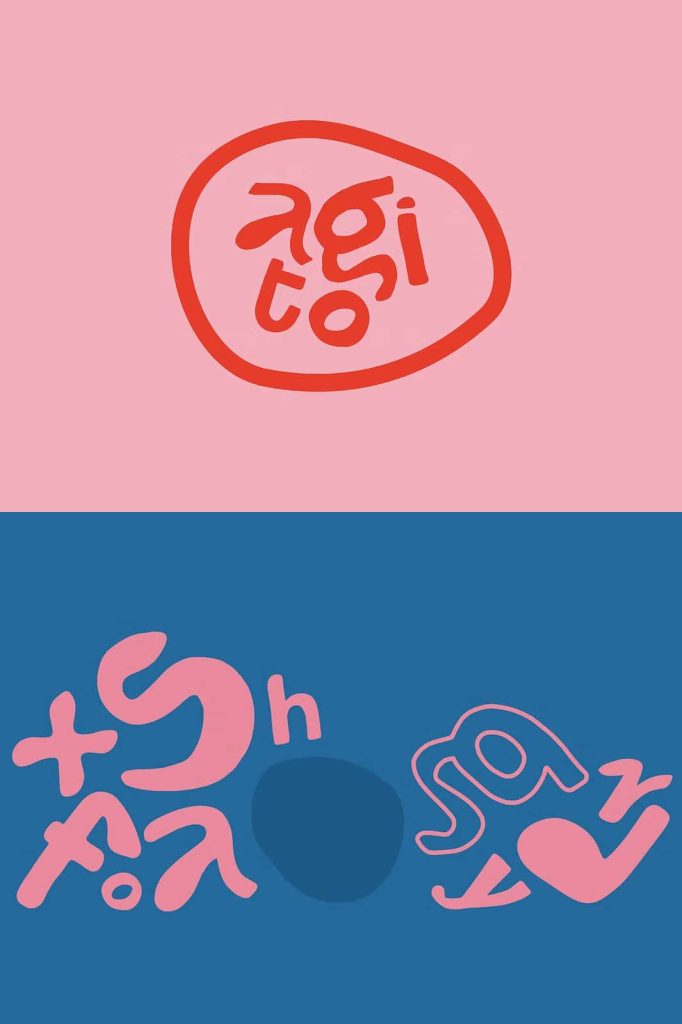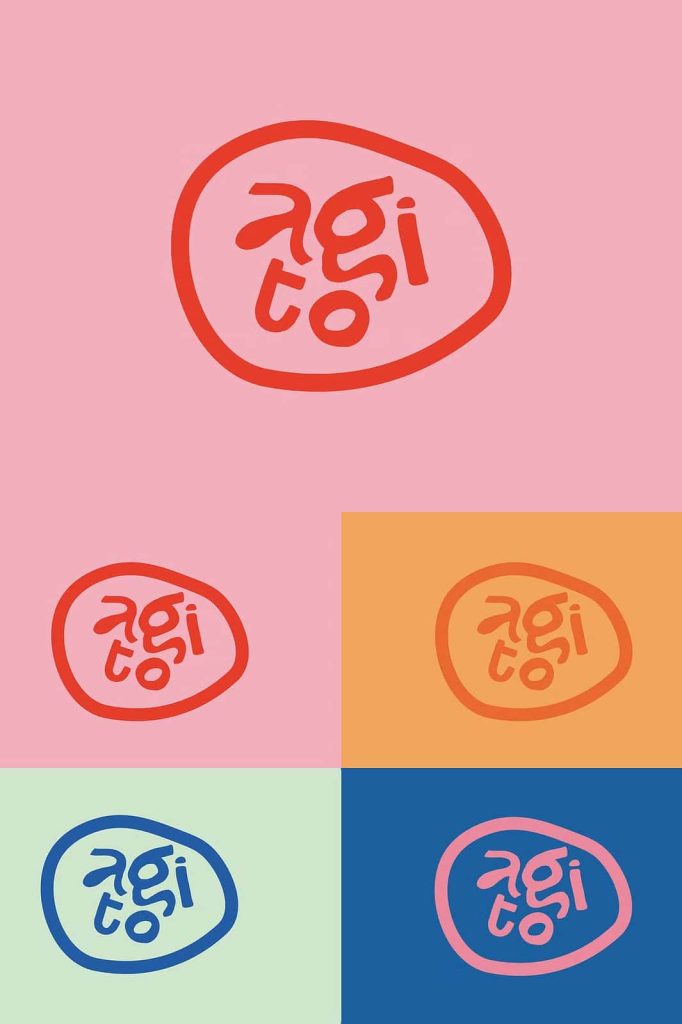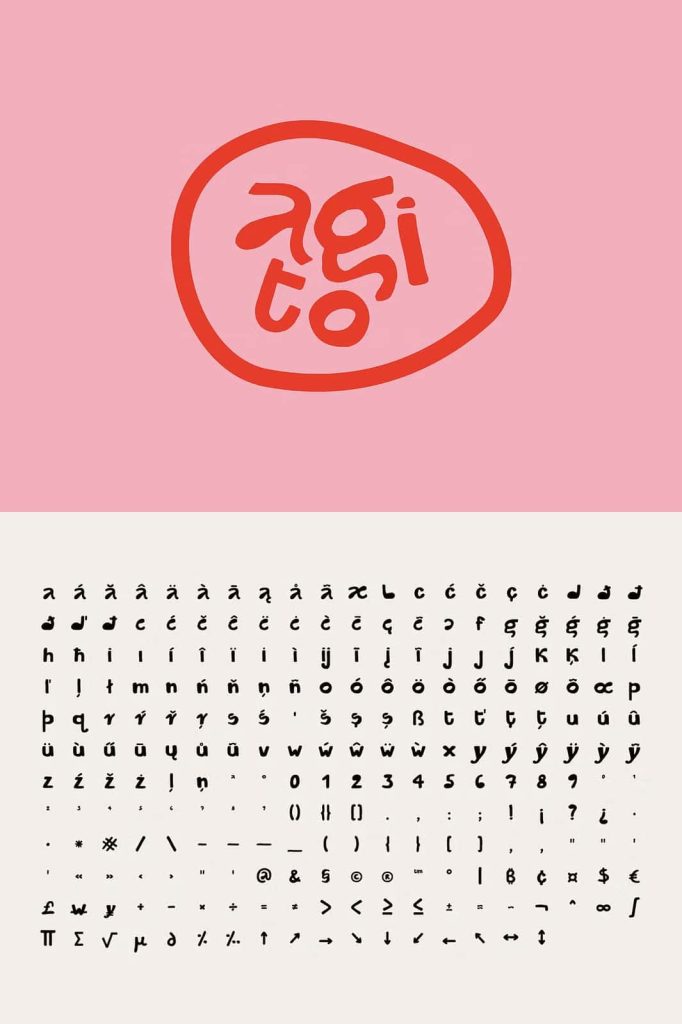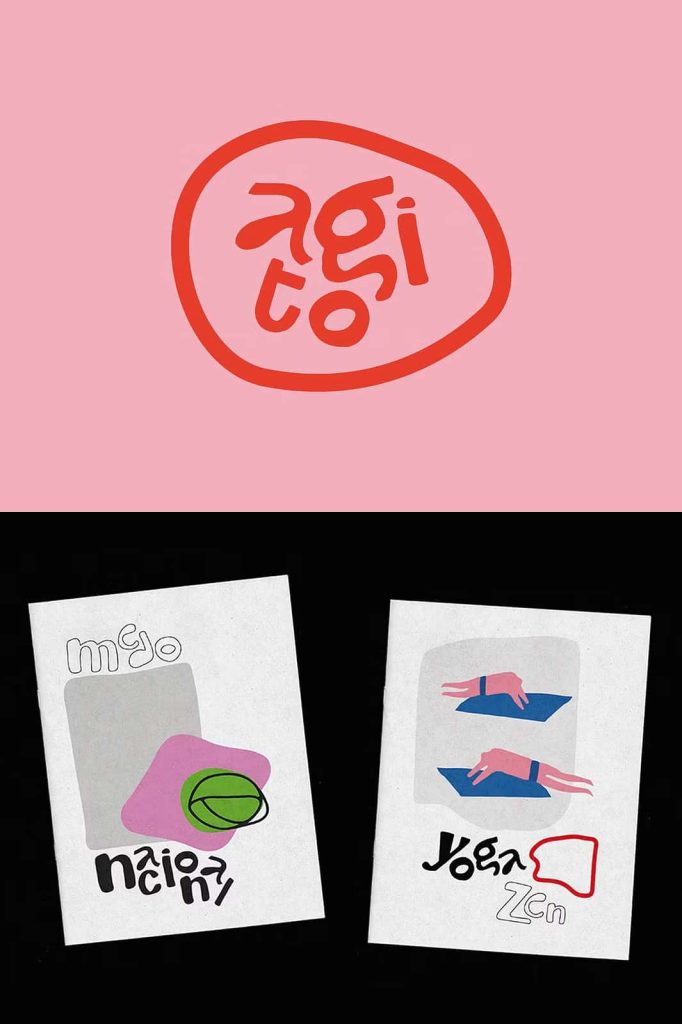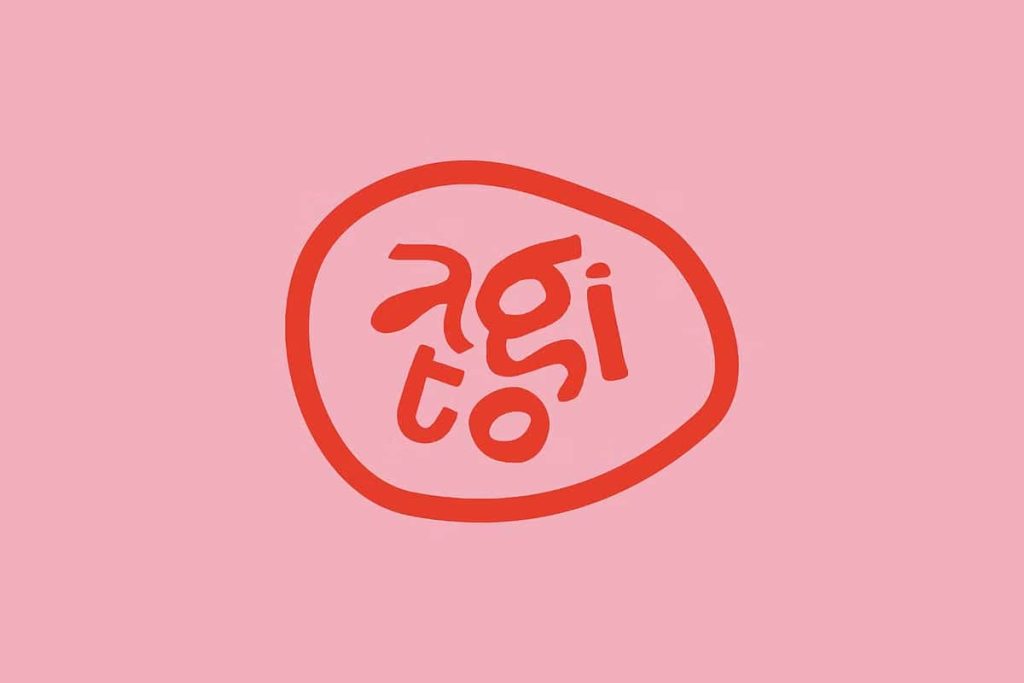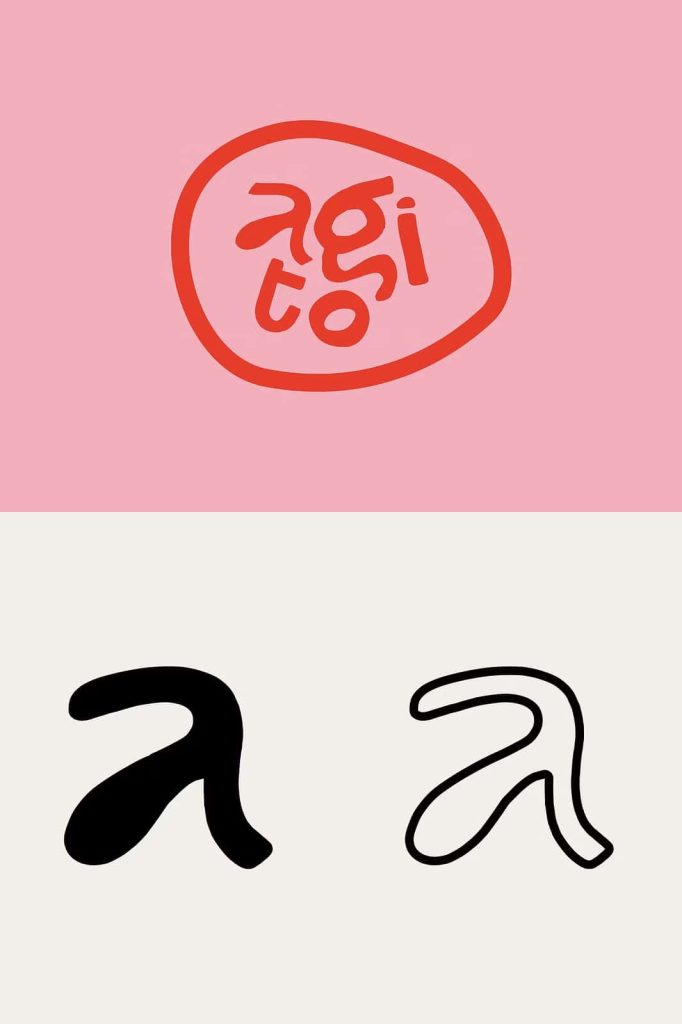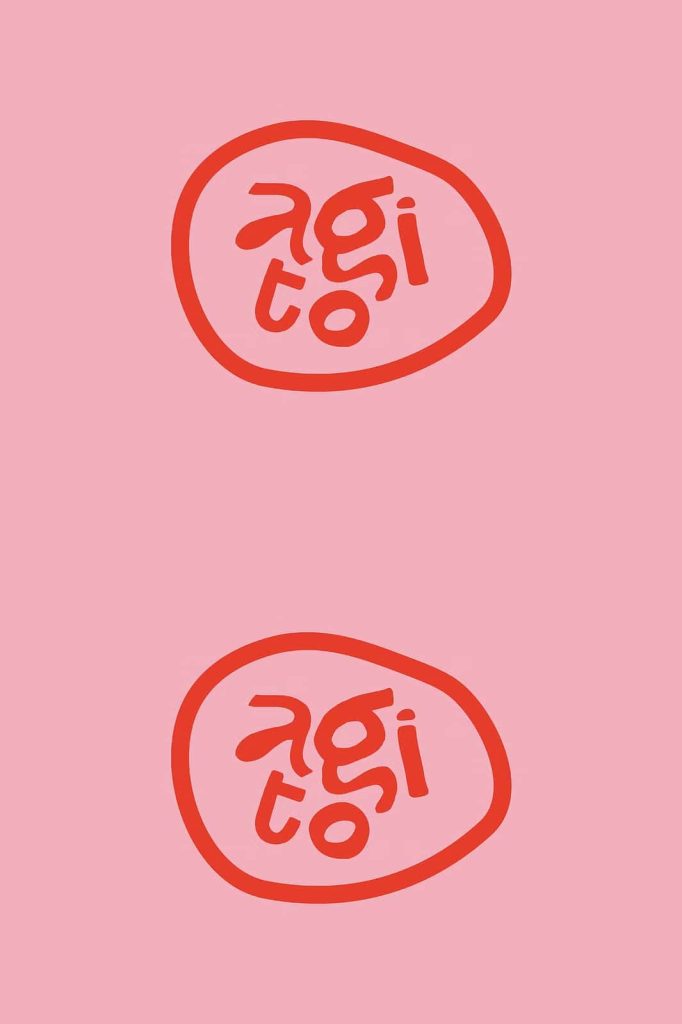
Agito Sans Serif Display Font for Modern Branding and Creative Typography
Agito is a distinctive sans-serif display font inspired by the timeless principles of the modernist design movement. Carefully handcrafted with ink before being transformed into a digital typeface, Agito combines artistic craftsmanship with contemporary typography. Every character reflects smooth curves, natural fluidity, and balanced proportions, creating a font that stands out while maintaining exceptional harmony across every letter.
Unlike ordinary display fonts, Agito captures the authentic feel of hand-drawn lettering while delivering the precision and versatility expected from modern digital typography. Its flowing forms and cohesive structure make it an excellent choice for designers who want to create memorable branding, expressive logos, eye-catching posters, and sophisticated typographic compositions. Whether you’re working on a commercial identity or a personal creative project, Agito helps your typography communicate confidence, originality, and artistic excellence.
Inspired by the Modernist Design Movement
The foundation of Agito comes from the iconic modernist design philosophy, where simplicity, functionality, and visual clarity work together to create meaningful communication. Instead of relying on excessive ornamentation, Agito embraces clean forms, balanced proportions, and elegant curves that naturally guide the viewer’s attention.
This modernist influence gives Agito a timeless personality that remains relevant across a wide range of design styles. It feels contemporary while preserving the artistic quality of handcrafted lettering, allowing designers to build visuals that appear both refined and expressive.
Handcrafted with Ink for Authentic Character
Every letter in Agito begins as an ink drawing, giving the typeface an organic personality that cannot be replicated by purely digital construction. This handcrafted process introduces subtle details and natural rhythm into every character, making each word feel alive while maintaining excellent consistency throughout the entire typeface.
The transition from traditional ink illustrations to a polished digital font preserves the warmth and authenticity of hand lettering without sacrificing professional quality. As a result, Agito delivers a unique combination of artistic expression and technical precision that works beautifully across both print and digital media.
Key Features
- Modern sans-serif display font
- Inspired by the classic modernist design movement
- Handcrafted with ink before digital refinement
- Elegant curves and fluid letterforms
- Excellent cohesion between every character
- Perfect for logos, posters, and branding
- Ideal for creative typography and artistic layouts
- Suitable for both print and digital applications
Designed for Creative Typography
Typography often becomes the focal point of a design, and Agito was created to embrace that role. Its bold yet graceful appearance allows designers to create compelling typographic arrangements that immediately capture attention. The balanced spacing and flowing curves help words feel connected, resulting in compositions that look polished and visually engaging.
Whether you design magazine covers, promotional graphics, editorial headlines, or inspirational quotes, Agito provides the flexibility to create typography that feels expressive without becoming overwhelming. Its clean construction also makes it easy to combine with supporting fonts, allowing designers to establish strong visual hierarchy throughout a project.
Create Memorable Logos and Brand Identities
Brand identity begins with typography, and Agito offers the personality needed to help businesses and creative brands stand apart from the competition. Its handcrafted origins give logos a distinctive signature feel, while its modern structure ensures they remain clean, professional, and highly recognizable.
Agito performs exceptionally well across various branding materials, including business cards, product packaging, websites, social media graphics, apparel, and advertising campaigns. The font projects creativity, confidence, and sophistication, making it suitable for fashion brands, design studios, creative agencies, cafés, lifestyle businesses, and premium product lines.
Perfect for Artistic Posters and Visual Campaigns
Display fonts play a crucial role in poster design, where strong typography often becomes the primary visual element. Agito delivers impressive impact thanks to its elegant curves and handcrafted personality. Large headlines remain readable while adding artistic energy that enhances the overall composition.
Designers can use Agito for concert posters, exhibition graphics, promotional campaigns, editorial covers, event branding, or creative marketing materials. Its modern aesthetic allows it to pair beautifully with photography, illustrations, geometric layouts, and minimalist compositions.
From sophisticated logos and memorable brand identities to artistic posters and striking typographic layouts, Agito gives every project a unique visual voice. If you’re looking for a display typeface that combines clean modern aesthetics with authentic handcrafted character, Agito is an outstanding choice that will elevate your creative work across both print and digital media.